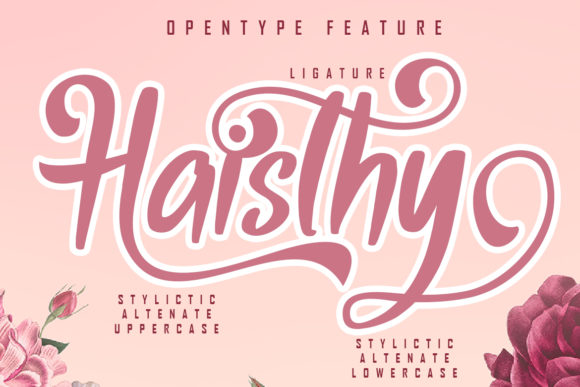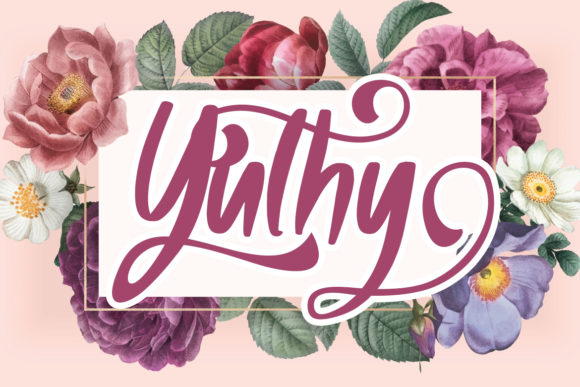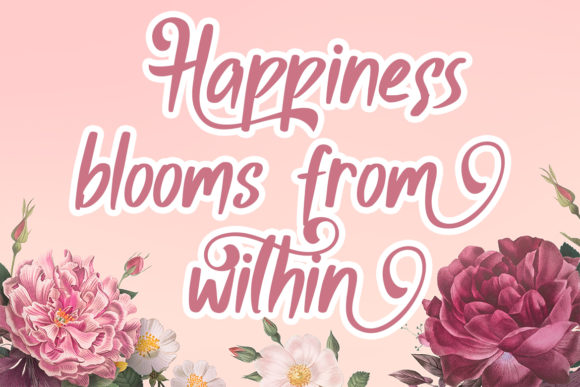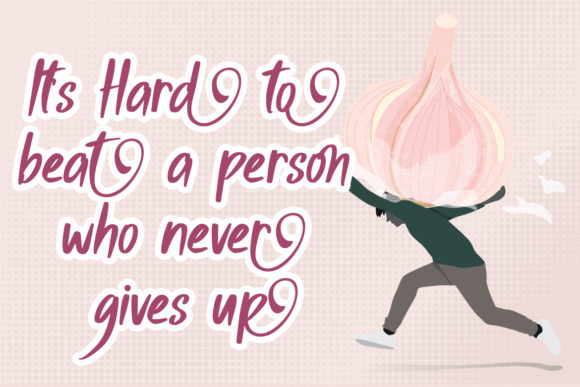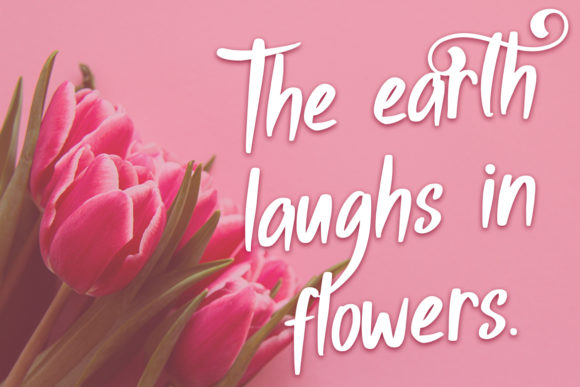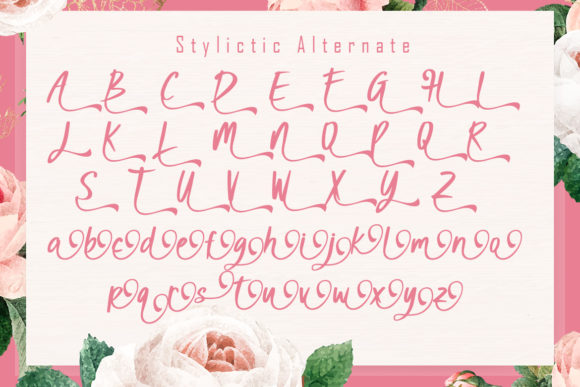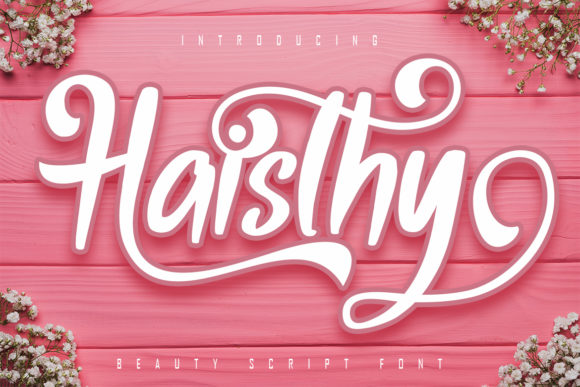
Introducing Haisthy Font: Elevate Your Designs with a Cool, Bold, and Beautiful Script Font
Are you tired of using the same old fonts in your designs? Look no further! Haisthy Font is here to revolutionize your creative projects with its unique blend of cool, bold, and beautiful script styles. This stunning font is designed to add a touch of elegance and sophistication to your designs, making it perfect for crafters, designers, and anyone looking to make a statement.
The Features of Haisthy Font
So, what makes Haisthy Font so special? For starters, its lovely flow and beautiful script style make it a joy to use in a variety of design projects. Whether you’re creating a logo, a poster, or a social media graphic, Haisthy Font is sure to brighten up your designs in an instant. But that’s not all – this font is also PUA encoded, which means you can access all of the glyphs and swashes with ease.
For those who may not be familiar, PUA (Private Use Area) encoding is a way of encoding fonts that allows designers to access a wide range of glyphs and swashes. This means that you can use Haisthy Font to create unique and customized designs that reflect your personal style. With PUA encoding, you can easily access alternative characters, ligatures, and other special features that will take your designs to the next level.
The Benefits of Using Haisthy Font
So, why should you choose Haisthy Font for your design projects? Here are just a few benefits of using this amazing font:
• Unique and eye-catching designs: With its bold and beautiful script style, Haisthy Font is sure to make your designs stand out from the crowd.
• Ease of use: Haisthy Font is PUA encoded, making it easy to access all of the glyphs and swashes you need to create stunning designs.
• Versatility: Haisthy Font is perfect for a wide range of design projects, from logos and posters to social media graphics and more.
• High-quality design: Haisthy Font is designed with high-quality craftsmanship in mind, ensuring that your designs look professional and polished.
Who Can Benefit from Haisthy Font?
Haisthy Font is perfect for a wide range of designers and crafters, including:
• Graphic designers: Whether you’re working on a logo, brochure, or social media graphic, Haisthy Font is a great choice for adding a touch of elegance and sophistication to your designs.
• Crafters: If you love crafting and making things, Haisthy Font is a great choice for adding a personal touch to your projects.
• Social media influencers: If you’re looking for a way to elevate your social media graphics and make them stand out, Haisthy Font is a great choice.
• Small business owners: If you’re looking for a way to create professional-looking designs without breaking the bank, Haisthy Font is a great choice.
In conclusion, Haisthy Font is a cool, bold, and beautiful script font that’s perfect for designers and crafters looking to elevate their designs. With its lovely flow, PUA encoding, and high-quality design, Haisthy Font is sure to brighten up your designs in an instant. Whether you’re a graphic designer, crafter, or small business owner, Haisthy Font is a great choice for adding a touch of elegance and sophistication to your projects. So why wait? Download Haisthy Font today and start creating stunning designs that will leave a lasting impression!